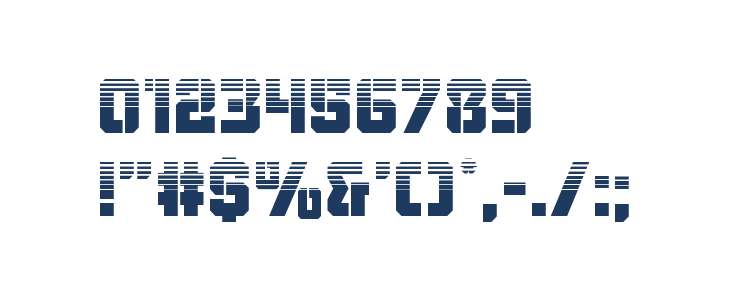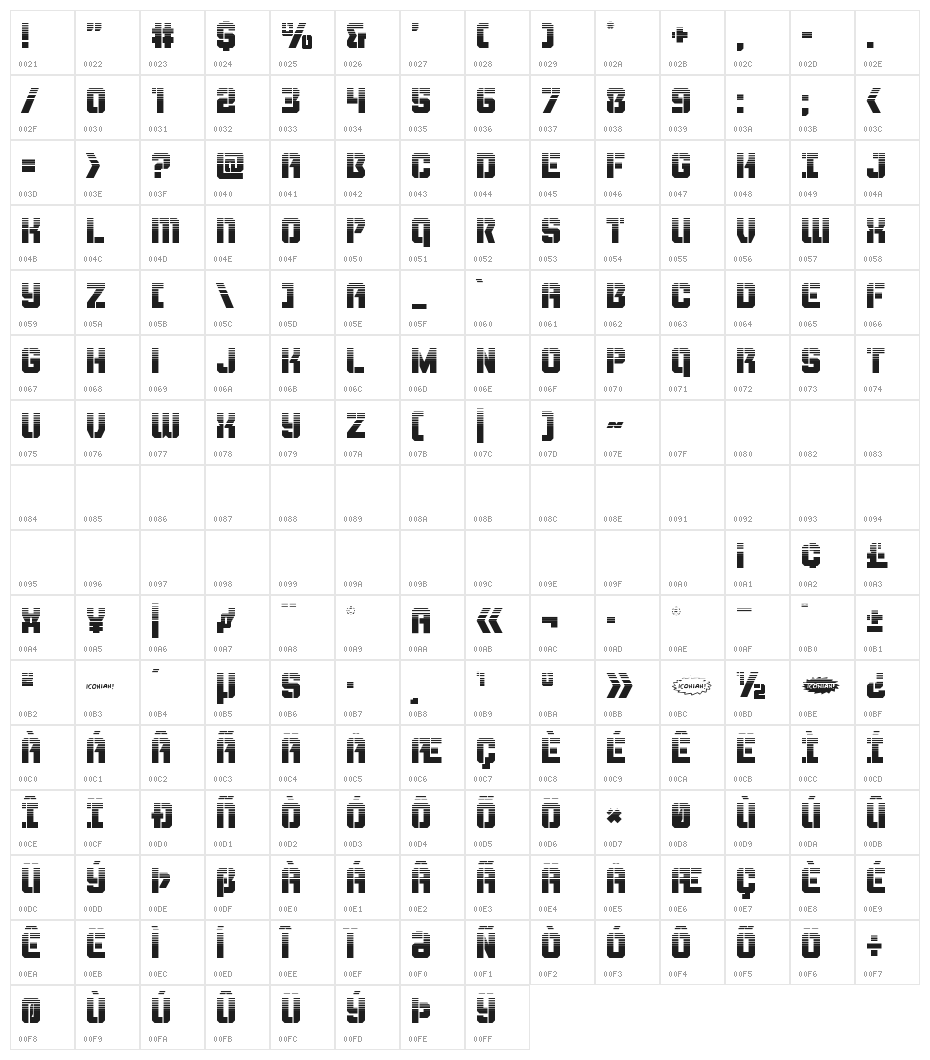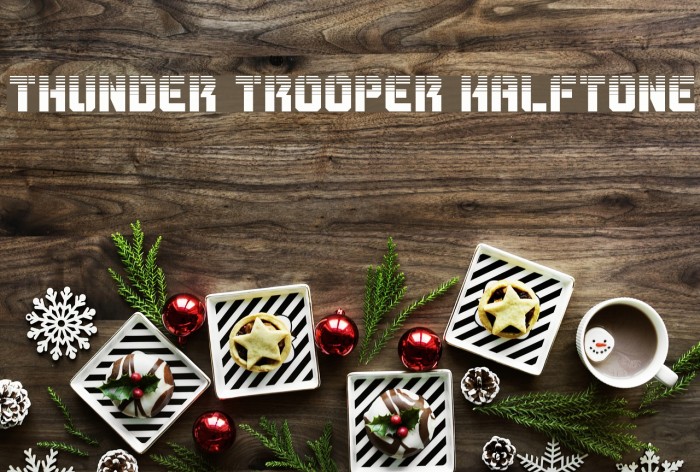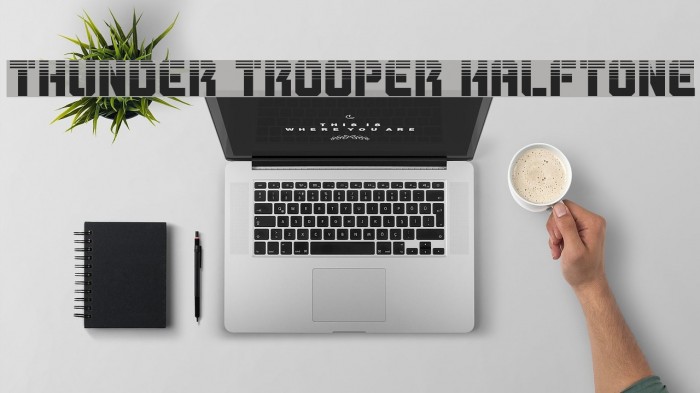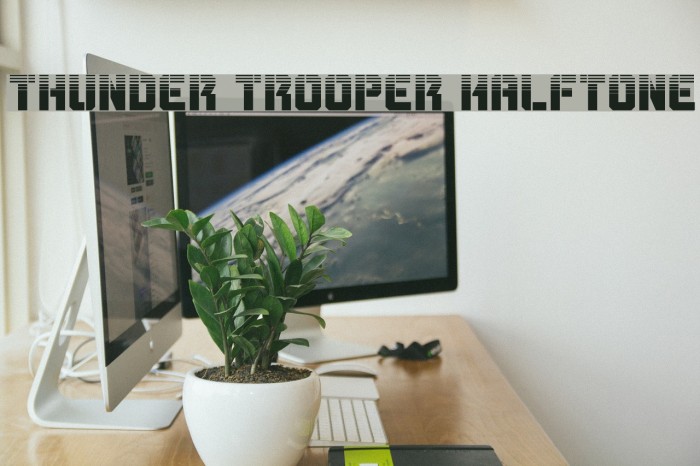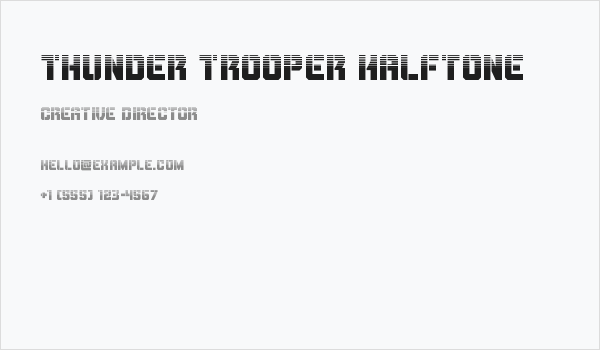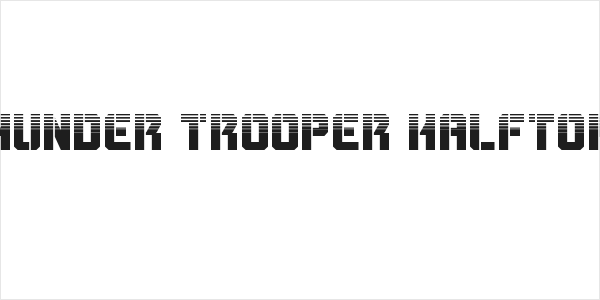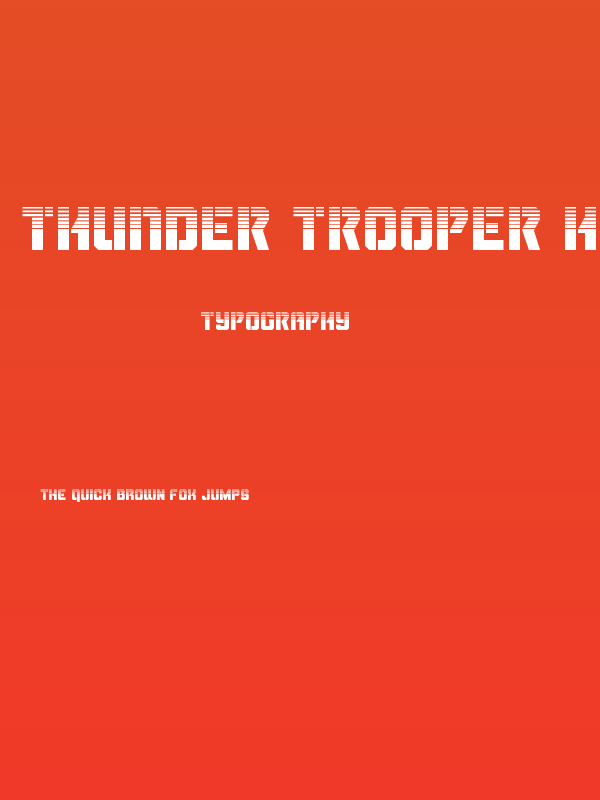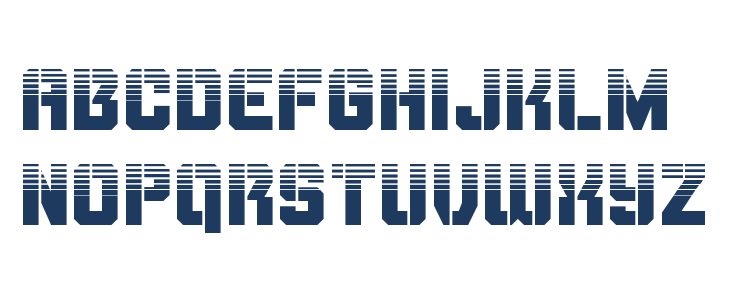
Thunder Trooper Halftone Font
Thunder Trooper Halftone Description
This font features a bold, futuristic design with a halftone effect that gives it a unique, digital appearance. The characters are constructed with solid, block-like forms, interrupted by horizontal lines that create a sense of movement and energy. This style is reminiscent of digital displays or sci-fi themes, making it highly suitable for modern, tech-oriented projects. The uppercase and lowercase letters maintain a consistent style, with numbers and special characters following the same design principles. The font's strong presence and distinctive look make it ideal for attention-grabbing headlines or branding.
| Overall Style | Futuristic, Digital |
| Proposed Projects | Ideal for sci-fi themed posters, tech branding, video game titles, and futuristic event promotions. |